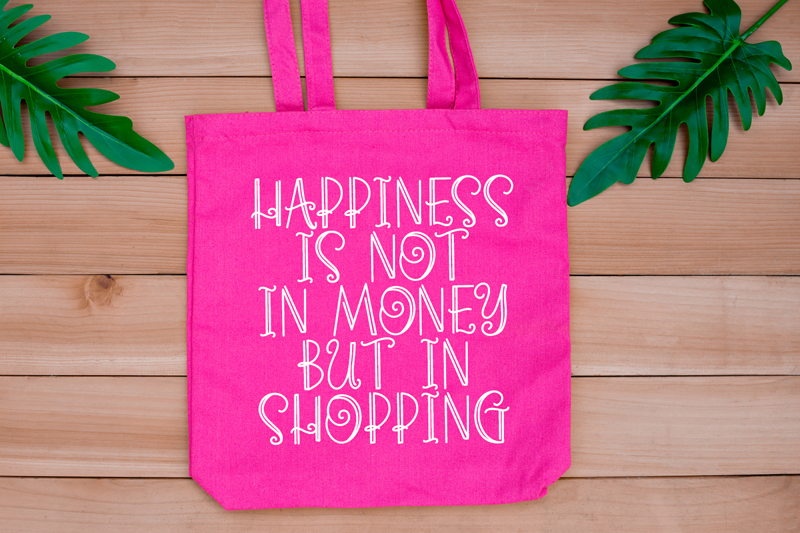
Preview and download Cherry Parsley Font. Created by Abo Daniel in Fancy Curly styles with Free for personal use license.
Thank You for Downloading CHERRY PARSLEY - swirly handwritten font - It is great for quotes, card, banner, book, cutting, silhouette, social media content and anything of craft project. This font is all uppercase. This fonts license is FREE FOR PERSONAL USE ONLY. if You Want to Use for Commercial Project, Please Purchase it on the following link https://www.creativefabrica.com/product/cherry-parsley/ref/236322/ or contact us at panggahlaksono@gmail.com Regards Abo Daniel Studio |